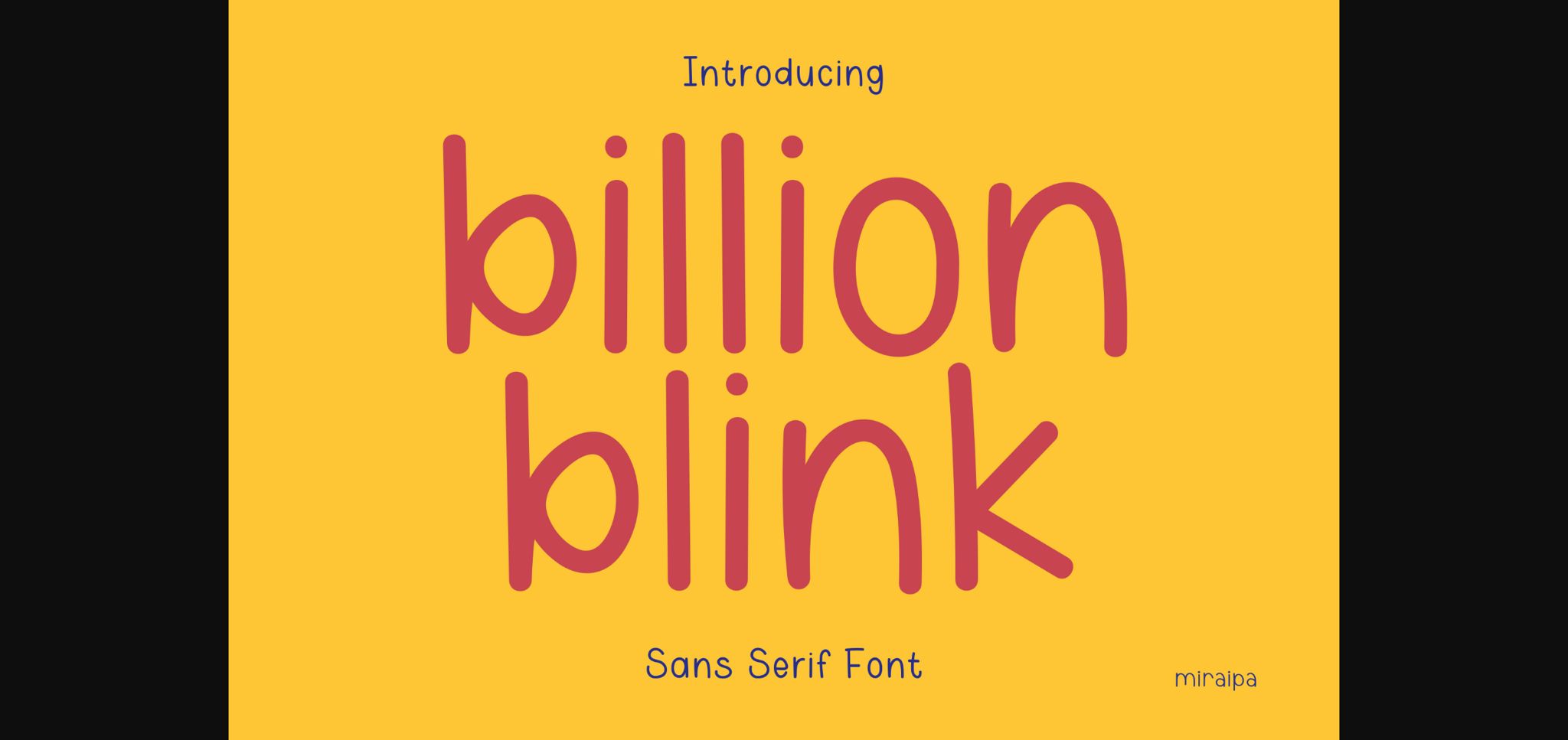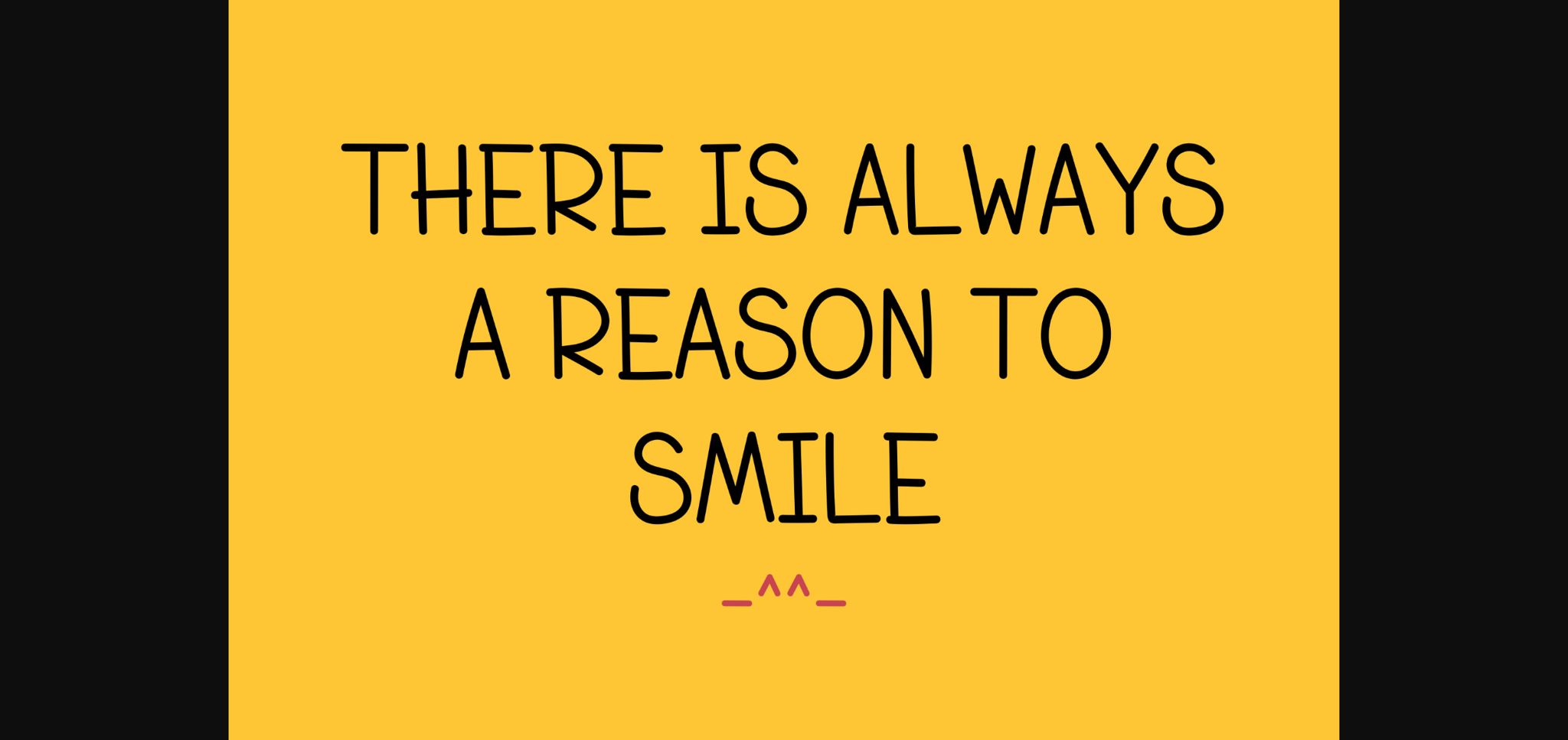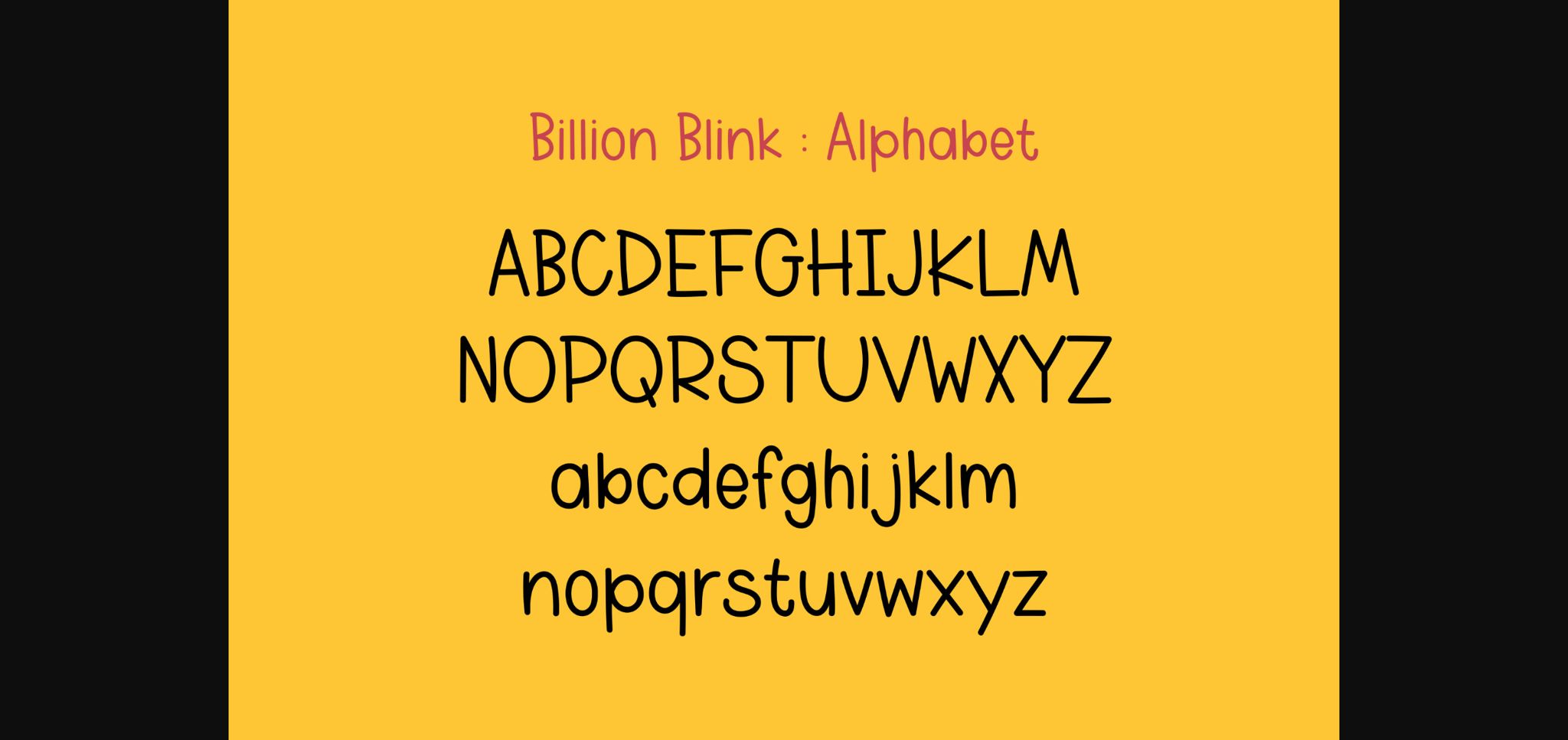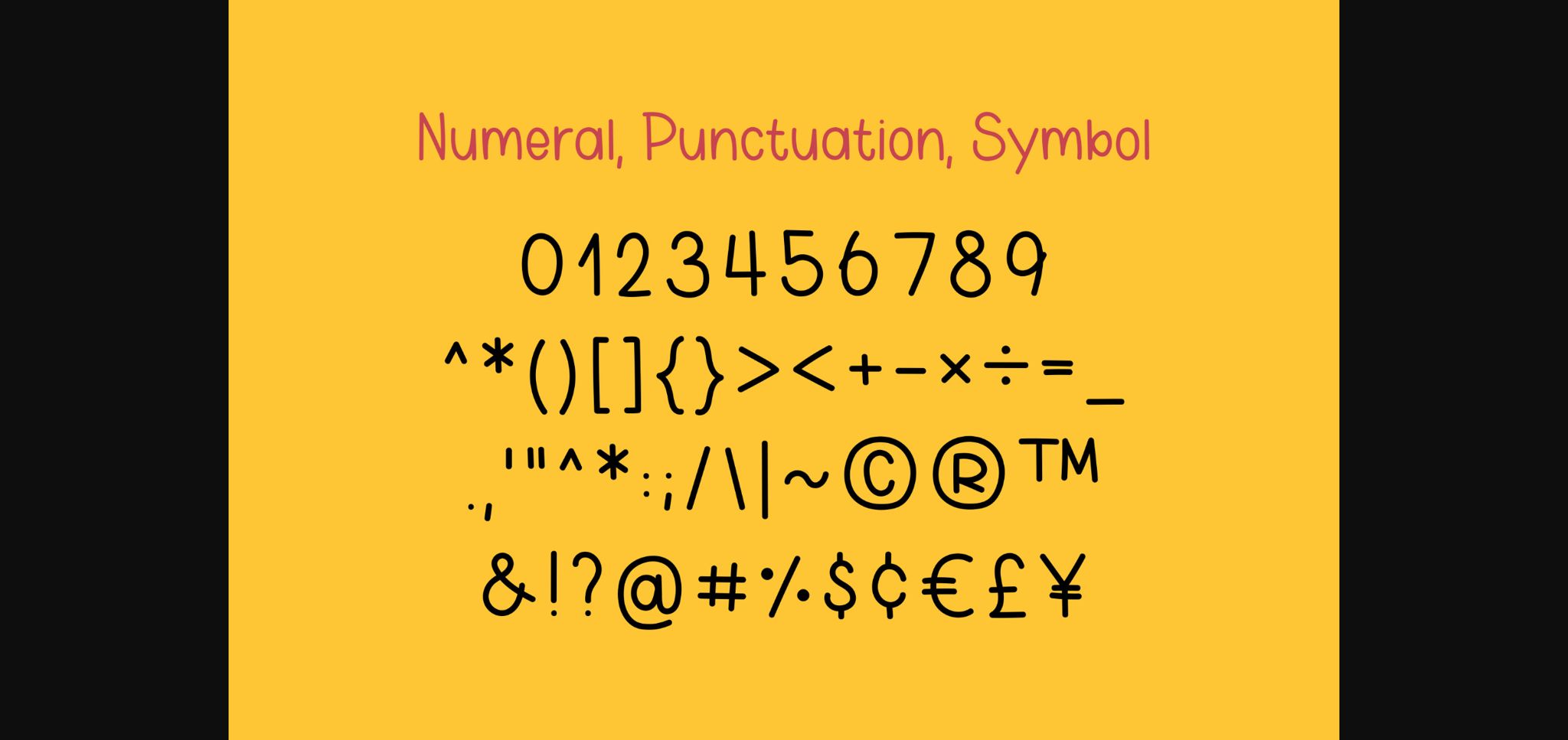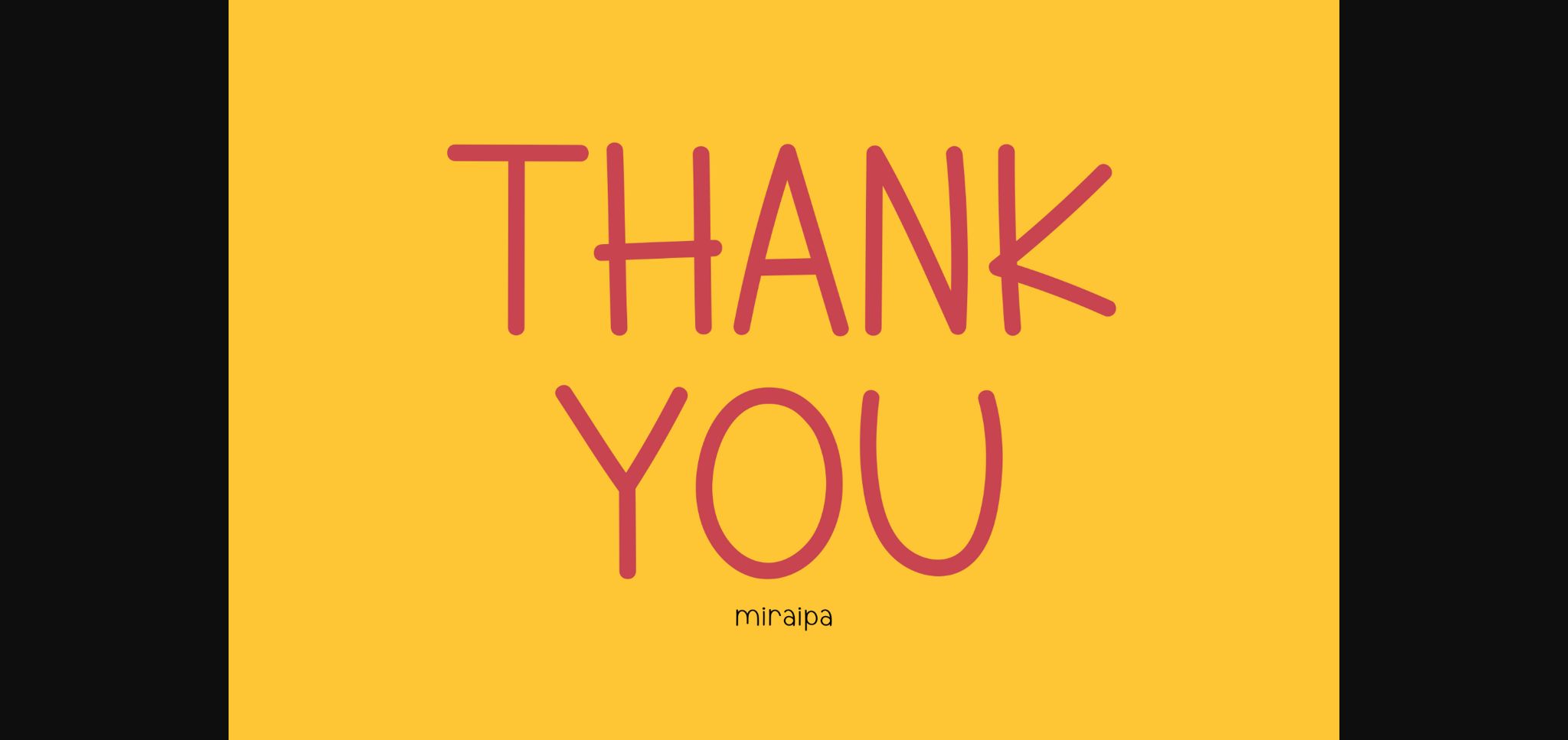
HomeSans Serif FontsBillion Blink Font Sans Serif Fonts Billion Blink Font FacebookXPinterestWhatsApp 1 of 7 ... Billion Blink Font Poster 2... Billion Blink Font Poster 3... Billion Blink Font Poster 4... Billion Blink Font Poster 5... Billion Blink Font Poster 6... Billion Blink Font Poster 7... About Billion Blink Font Billion Blink is a cute and friendly handwritten sans serif font. Whimsical and a bit quirky, this font will brighten up each of your designs. DOWNLOAD NOW People also explored Amellinda Signaturere Font The Jamroods Font Hello Daisy Font Calline Font Balleda Font Soccer Font Cactus Tree Font About Font Gorgeous Swirls Font 356 0 TagsBillion Blink Font Previous articleBaresno FontNext articleOshopo Font LEAVE A REPLY Cancel reply Comment: Please enter your comment! Name:* Please enter your name here Email:* You have entered an incorrect email address! Please enter your email address here Website: Save my name, email, and website in this browser for the next time I comment. Personal Use Free Wordan Personal Use Free Read more about this font The Winter Personal Use Free Read more about this font Green Fuz Personal Use Free Read more about this font Fontmageddon Personal Use Free Read more about this font BLOG Free vs Paid Fonts: Why Investing in Premium Fonts Is Worth It Free vs Paid Fonts: Why Premium Fonts Are Worth It in 2025 The debate of free vs paid fonts continues in the design world. While... Where to Buy American Fonts Online in 2024 Best Fonts for T-Shirt Design – Top 2025 Picks 5 Fonts That Will Dominate Design Trends in 2026